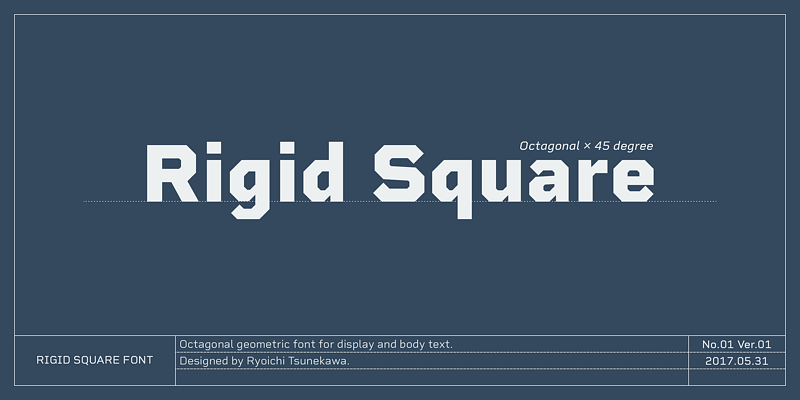
Rigid Square specimen
Rigid Square
Rigid Square has a rule, Octagonal shape and 45 degree cuts. Very geometric shape but designed especially for body text, long sentence such like a mechanical instructions.